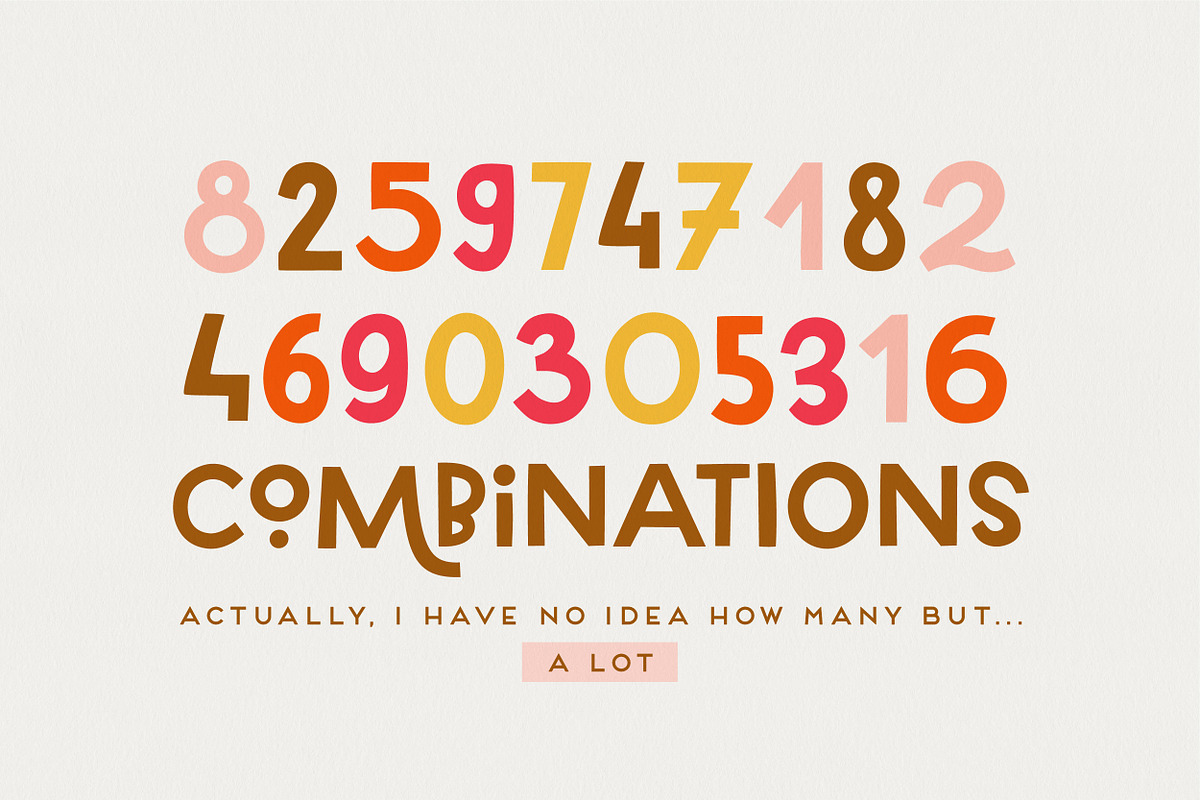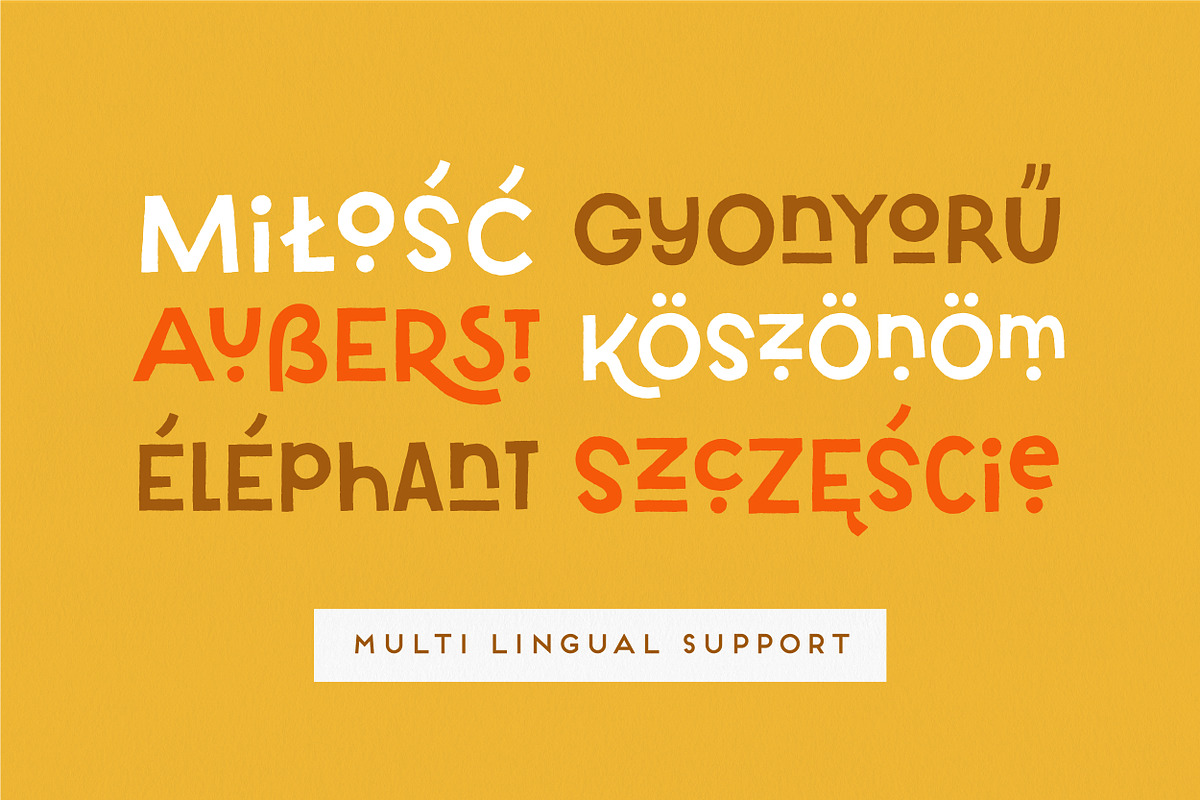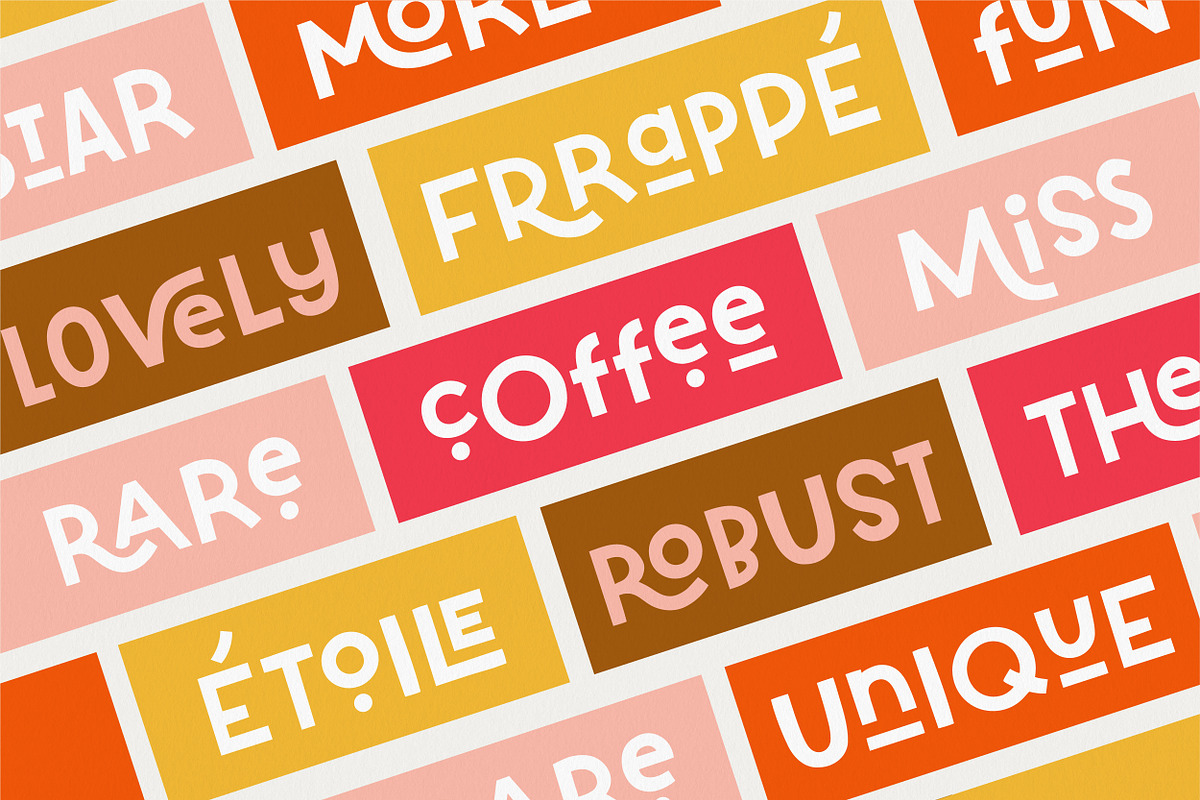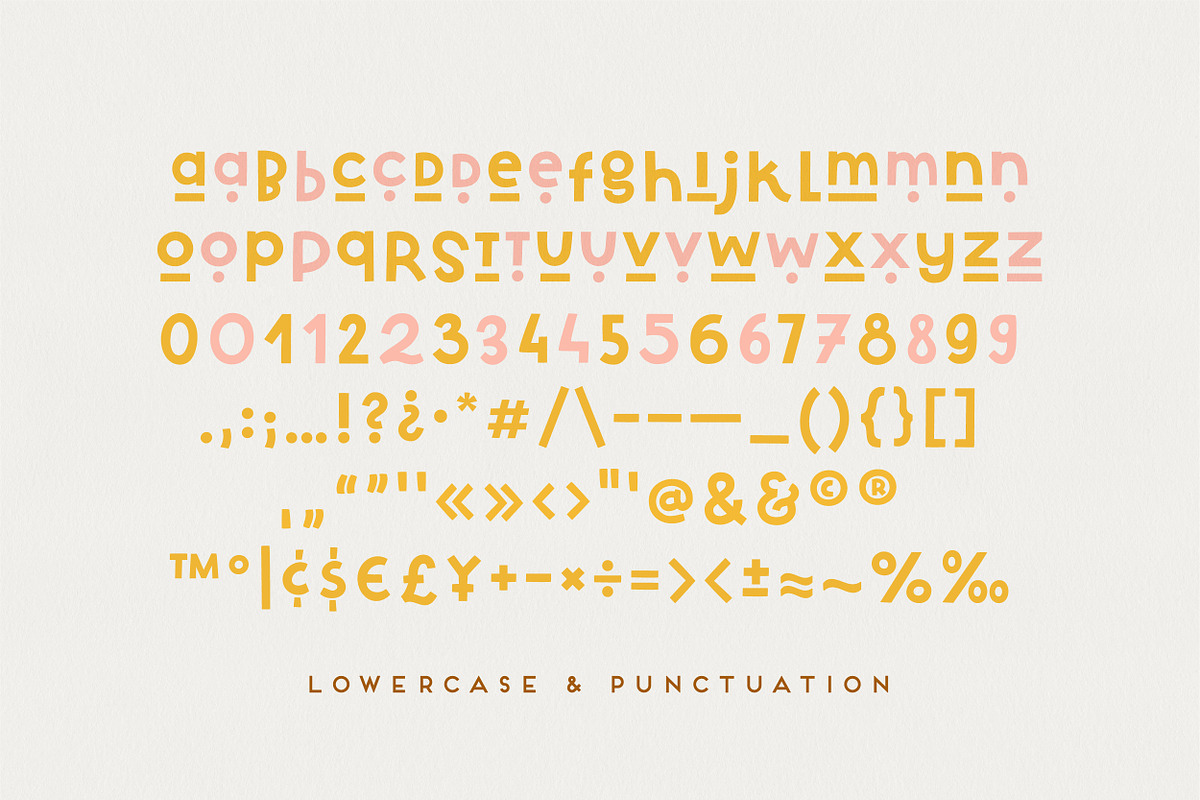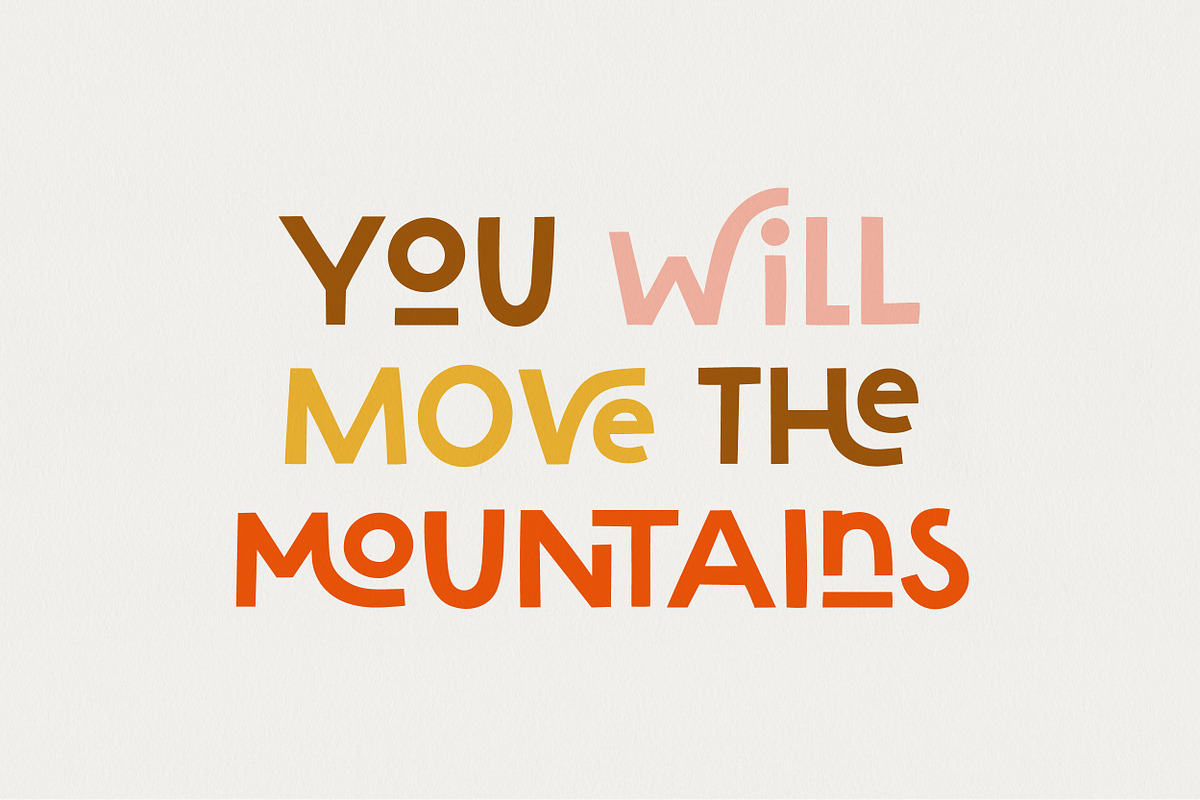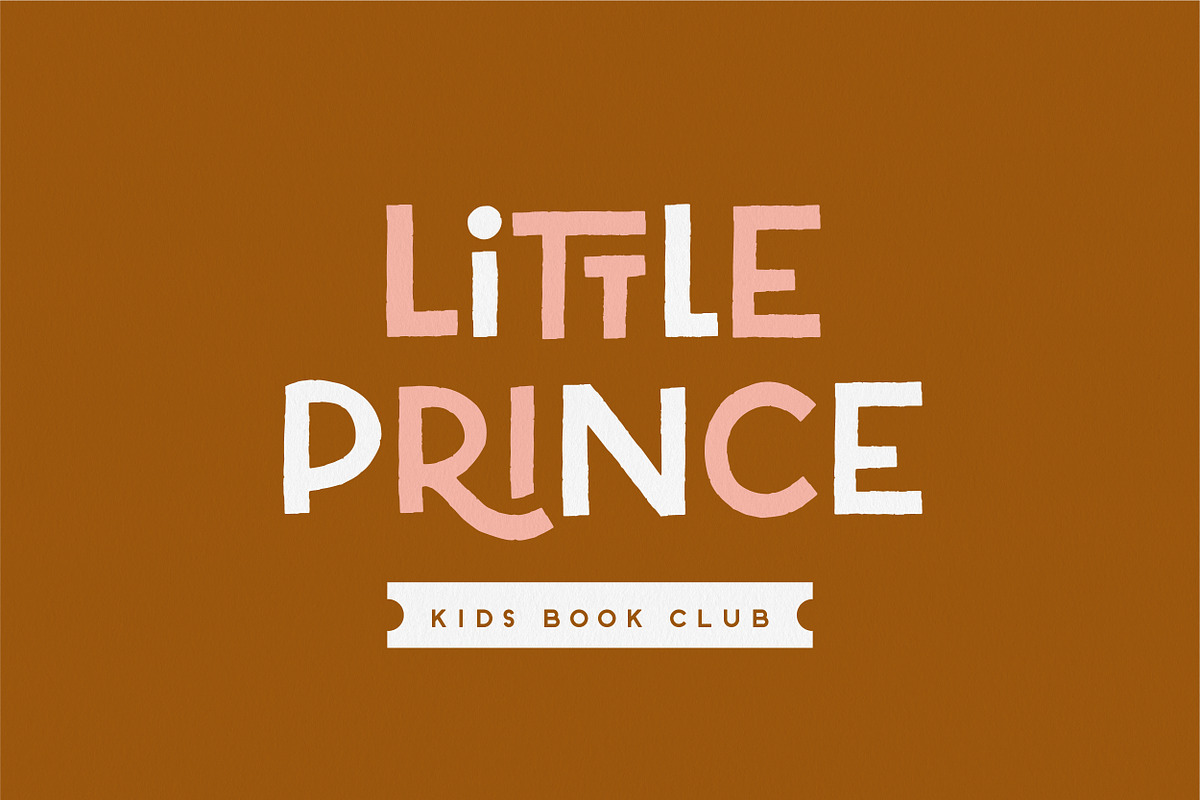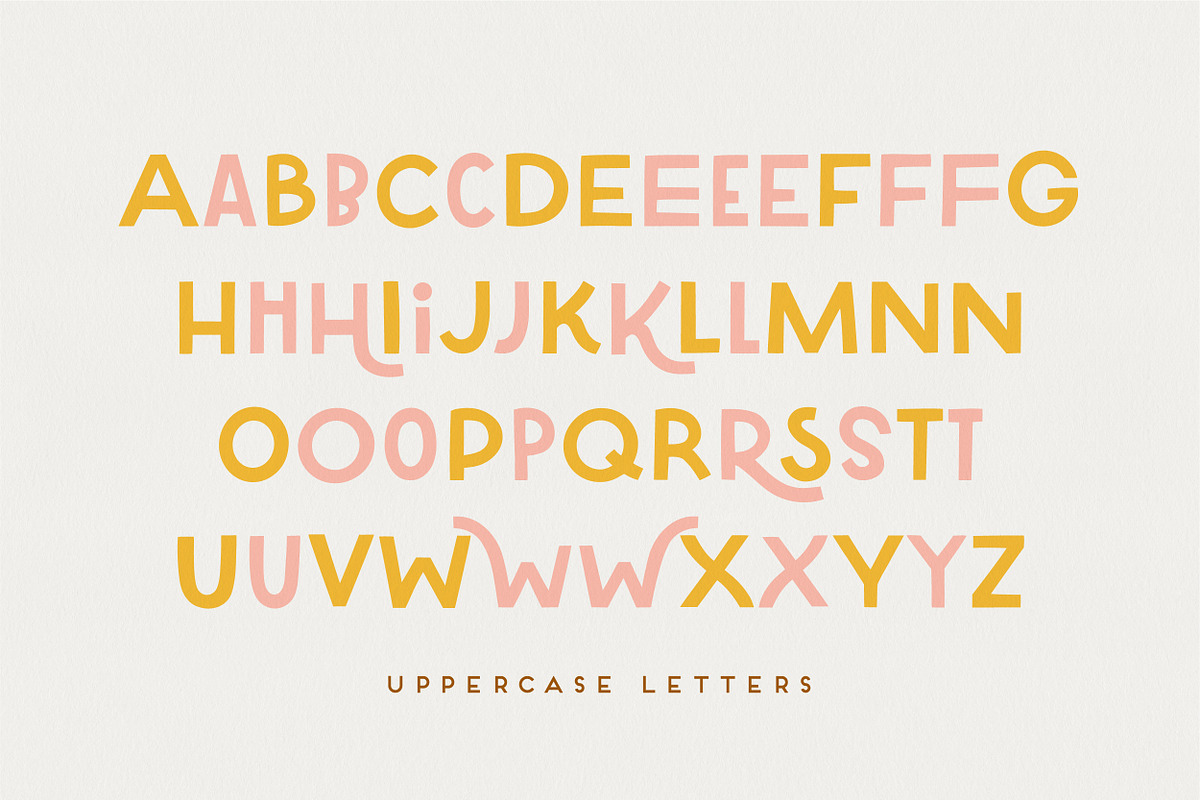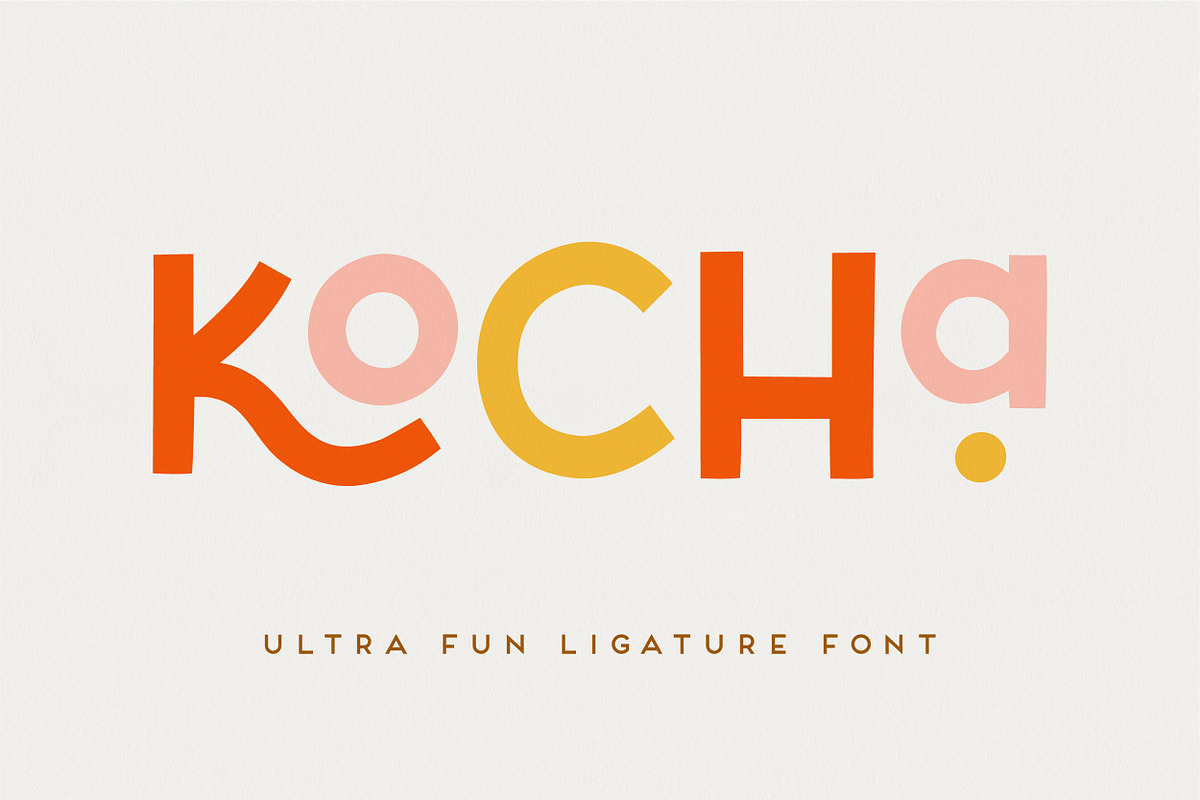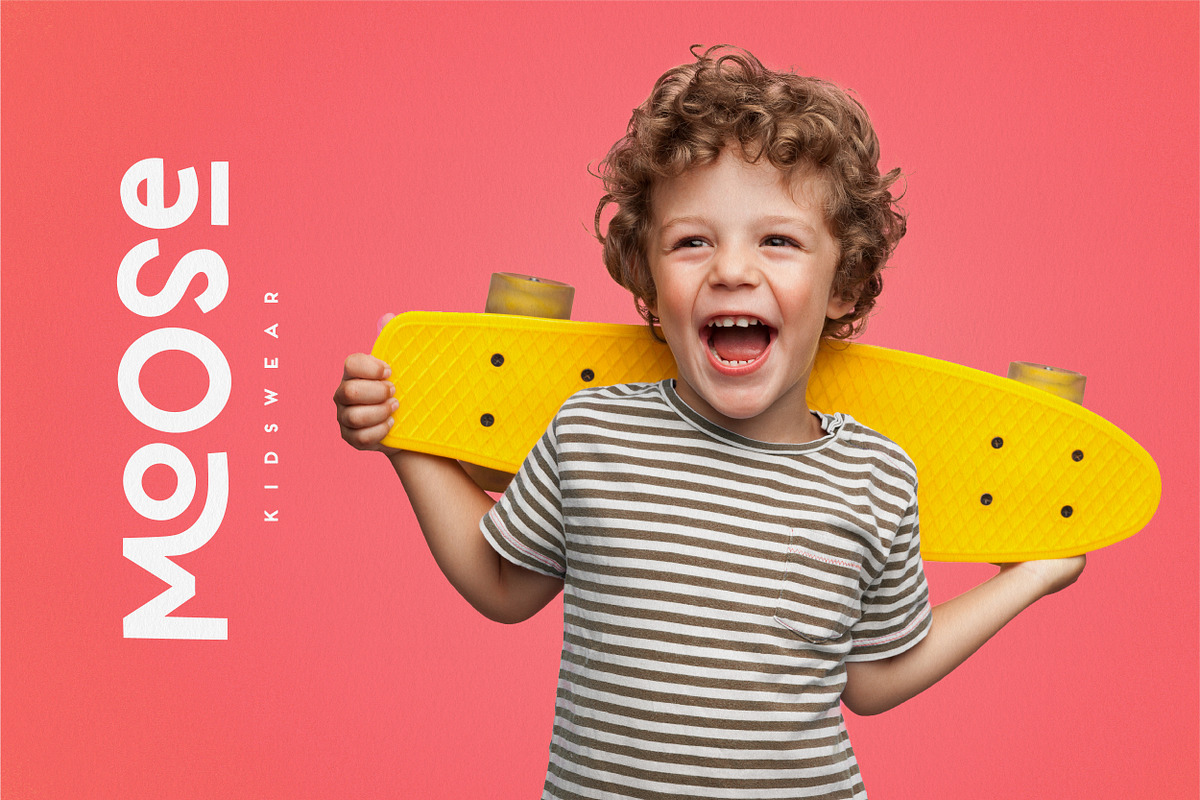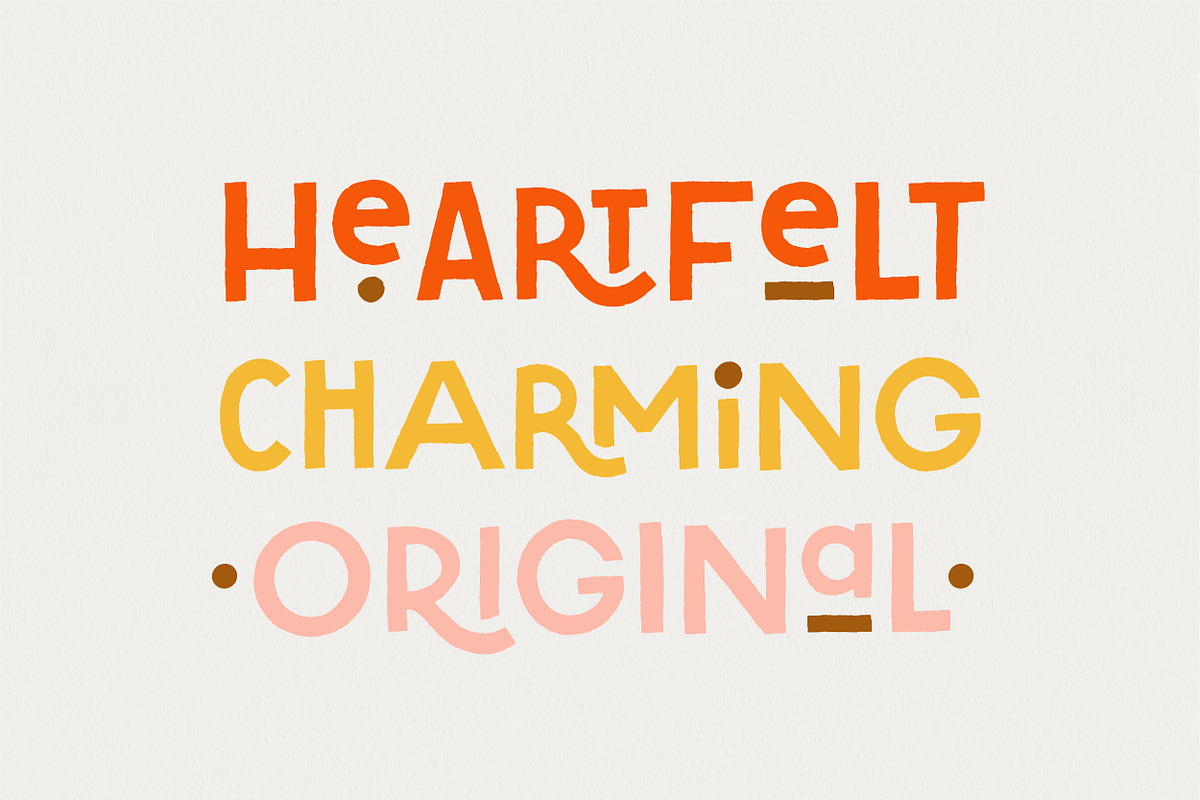
Kocha | Playful Ligature Font
Say hello to Kocha - hand-drawn display font with plenty of ligatures and stylistic alternatives. Perfect for creating logos, greeting cards, posters, packaging and so much more! Its charming and warm character will help you give your project a truly unique feel.
Designed and kerned with care and love to make using it a breeze.
WHAT YOU WILL GET Kocha is packed with lovely features:
- many stylistic alternates for uppercase, lowercase and numbers
- plenty of ligatures
- multilingual support with accented characters for international designers